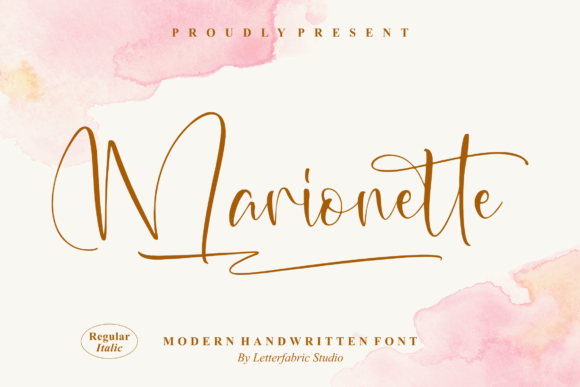
**Introducing Marionette: The Enchanting Script Font That Will Captivate Your Designs**
Embark on a typographic journey with Marionette, a script font that dances across your screen with effortless grace. Its fine, delicate strokes evoke a sense of sophistication and elegance, transforming your designs into captivating works of art.
Marionette's ethereal nature is perfect for adding a touch of whimsy to invitations, logos, and social media posts. Its flowing lines create a captivating visual rhythm that draws the eye and sparks the imagination.
Whether you're a seasoned designer or just starting your creative adventure, Marionette is the perfect tool to elevate your designs to new heights. Its versatility knows no bounds, effortlessly adapting to a wide range of projects.
**Why Choose Marionette?**
* **Express Your Creativity:** Unleash your inner artist with Marionette's intuitive design, allowing you to create stunning text-based masterpieces.
* **Capture Attention:** Its delicate strokes and graceful curves command attention, ensuring your message stands out from the crowd.
* **Make a Lasting Impression:** Marionette's timeless charm leaves a lasting impression, creating designs that resonate with your audience.
* **Enhance Your Brand:** Elevate your brand identity with Marionette's sophisticated aesthetic, conveying a sense of professionalism and creativity.
* **Personalize Your Designs:** Add a touch of individuality to your projects with Marionette's customizable features, tailoring it to your unique vision.